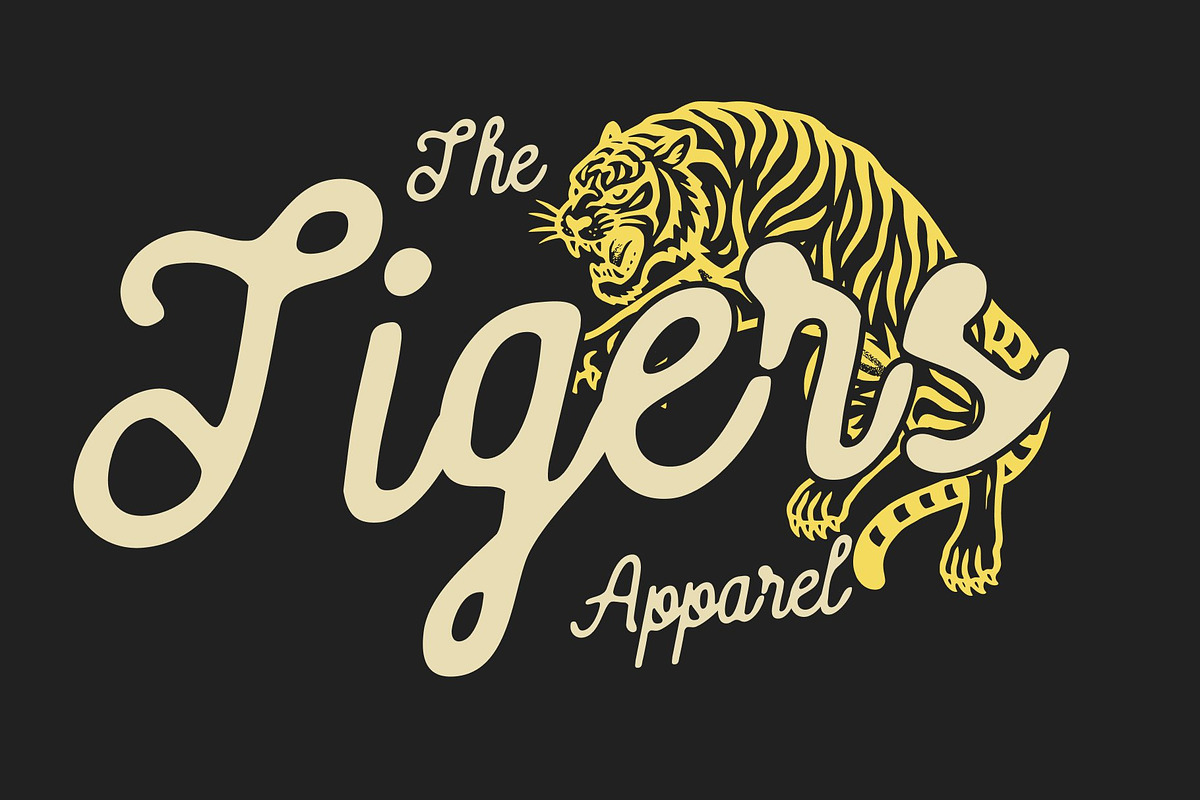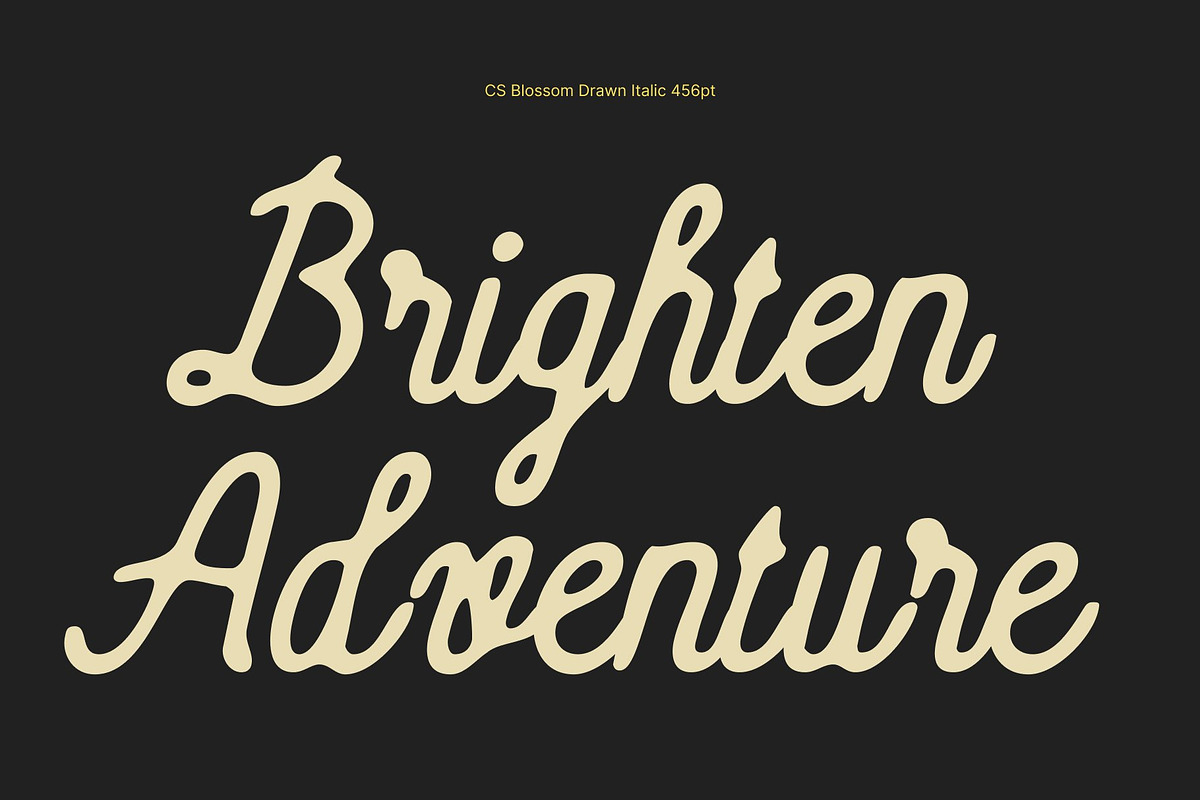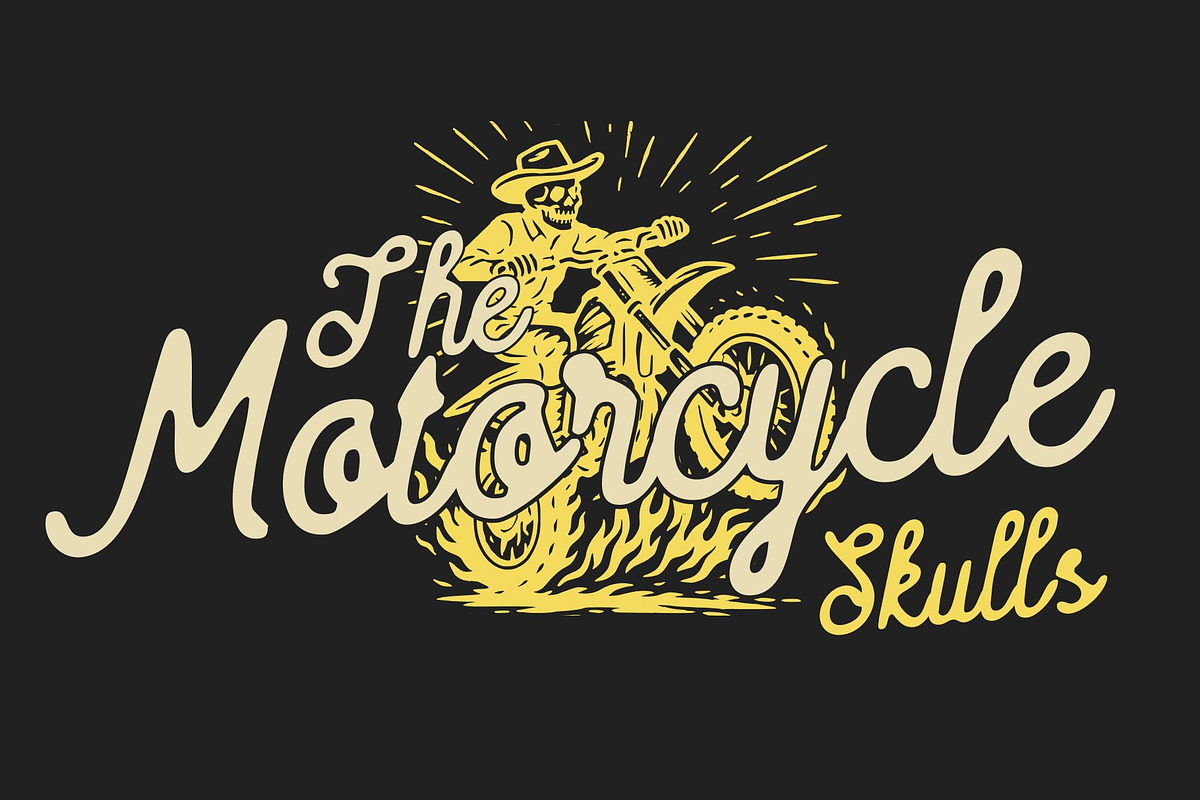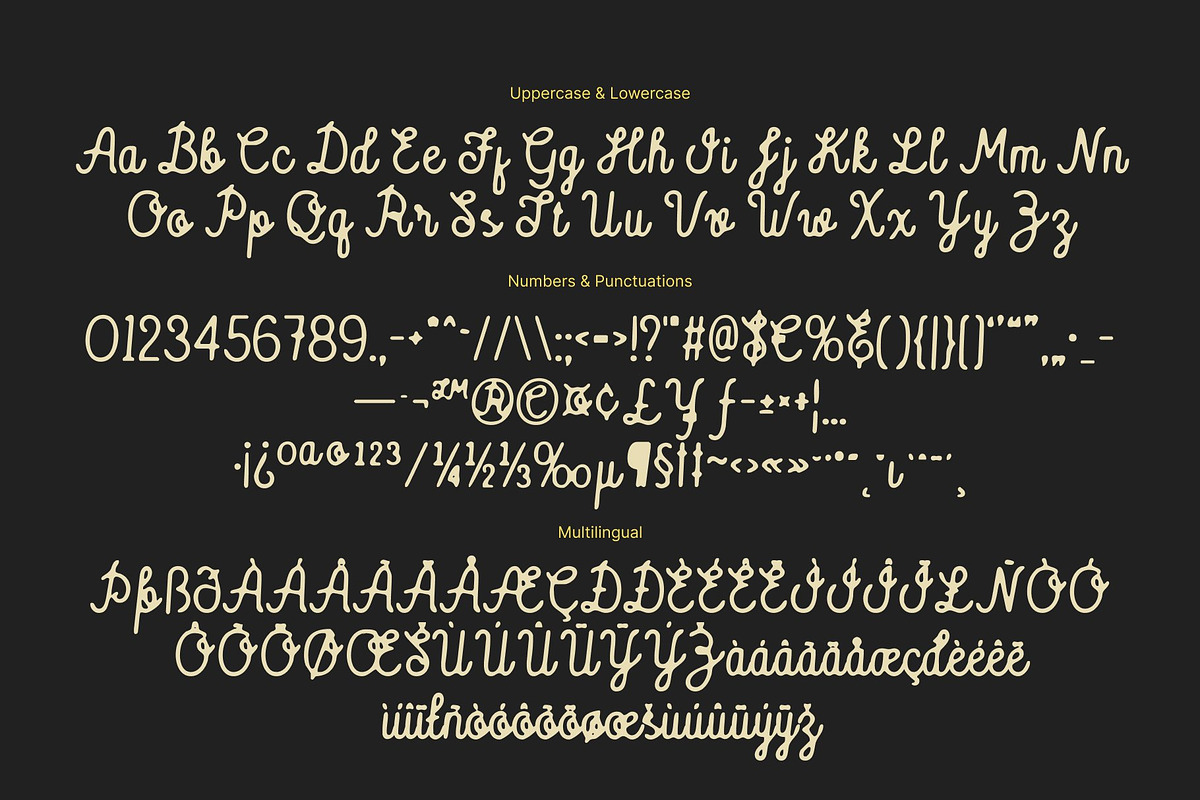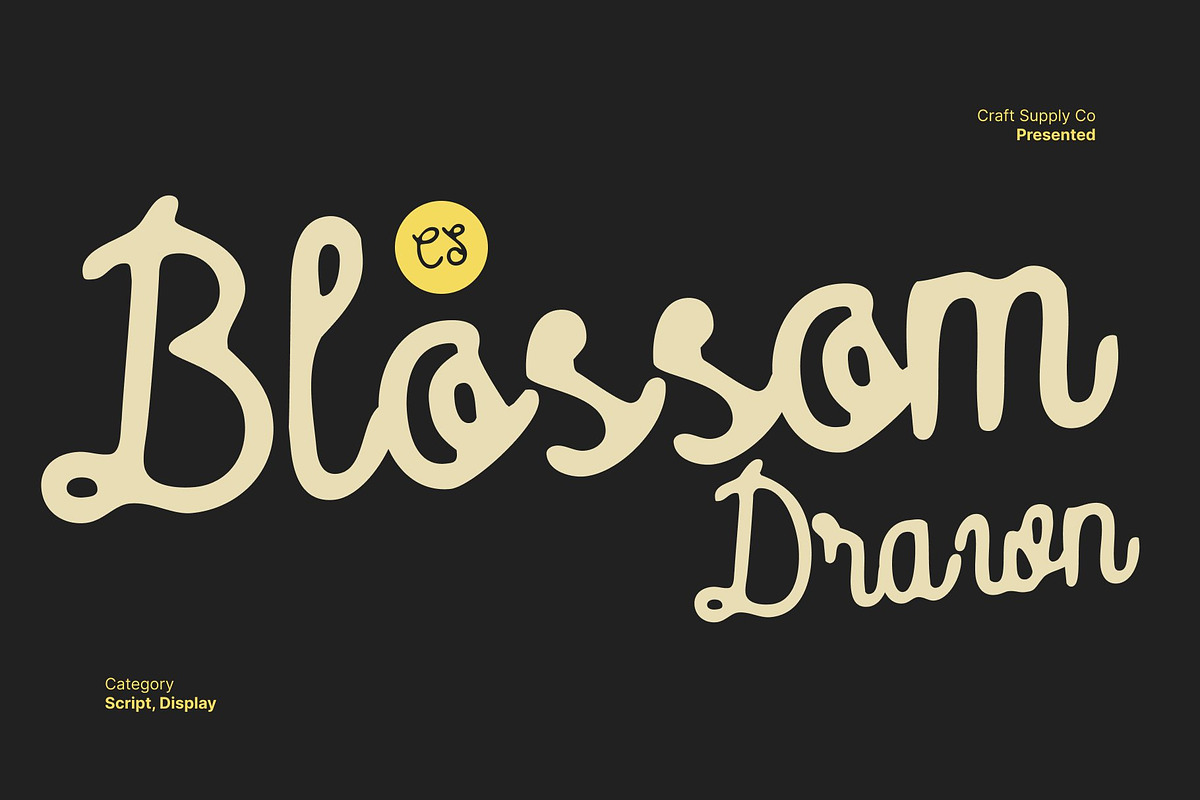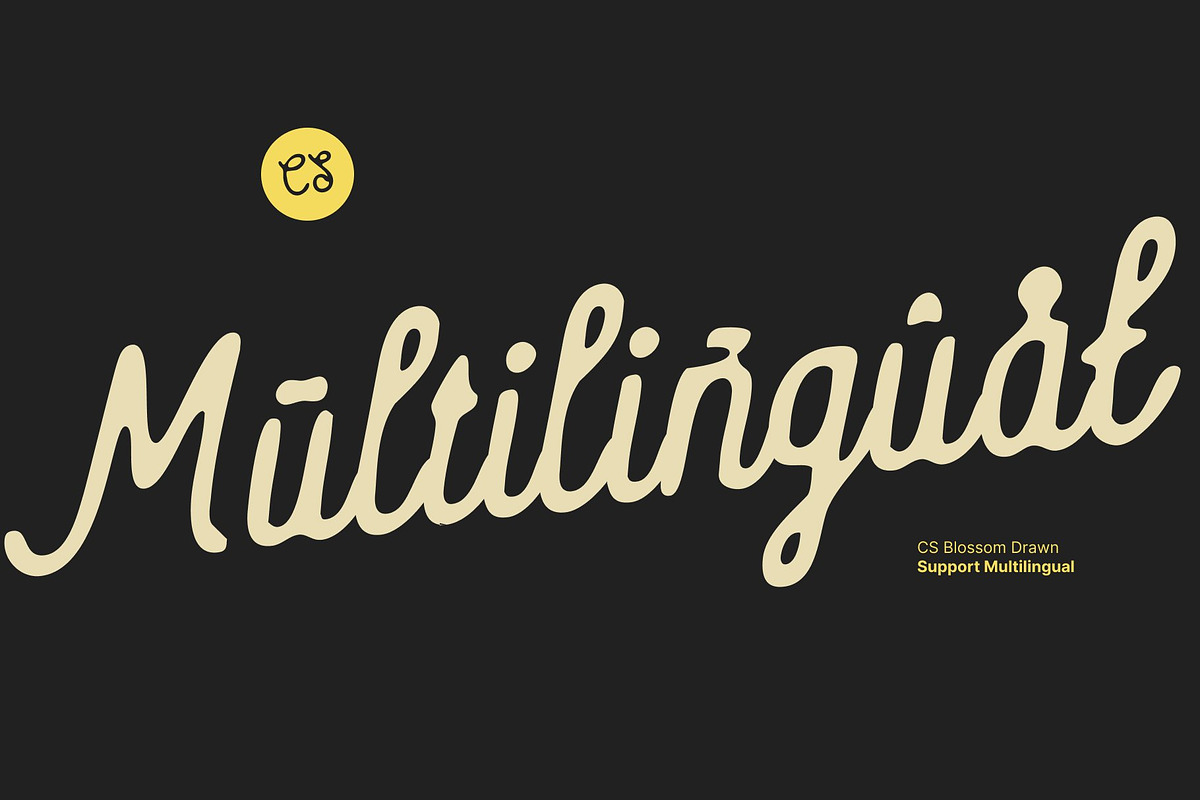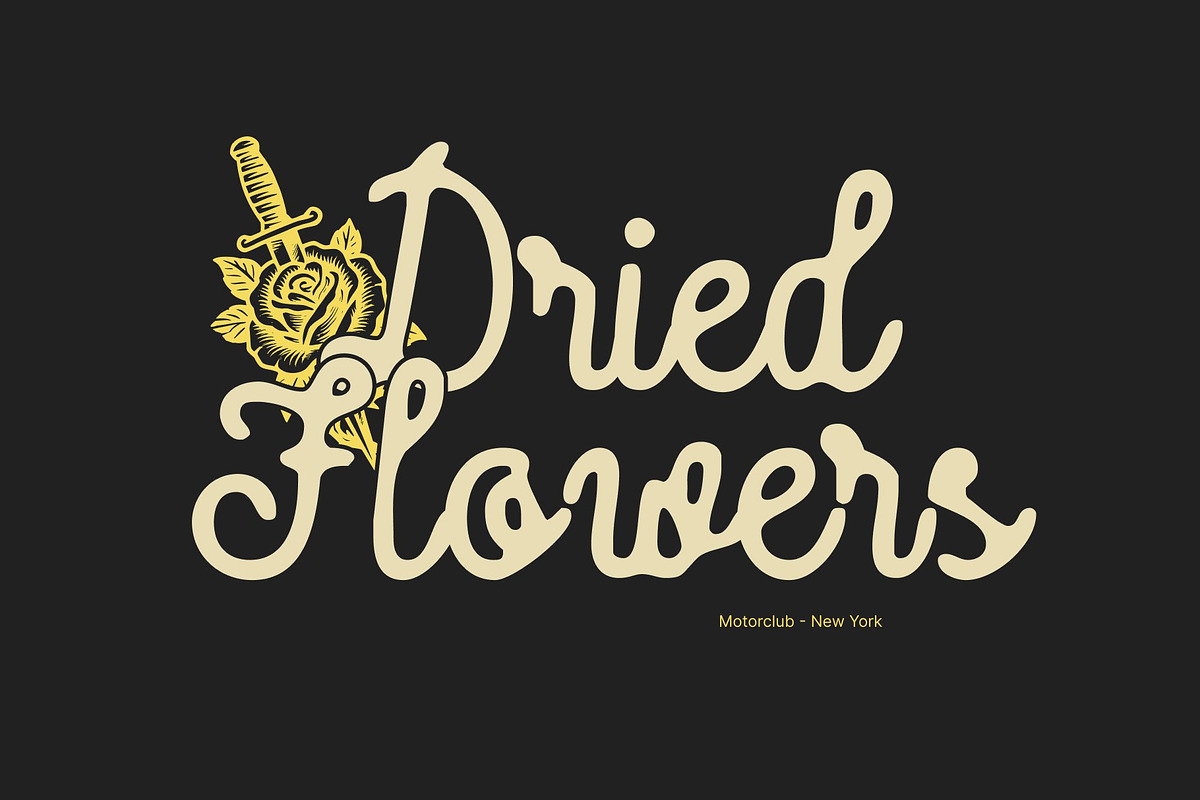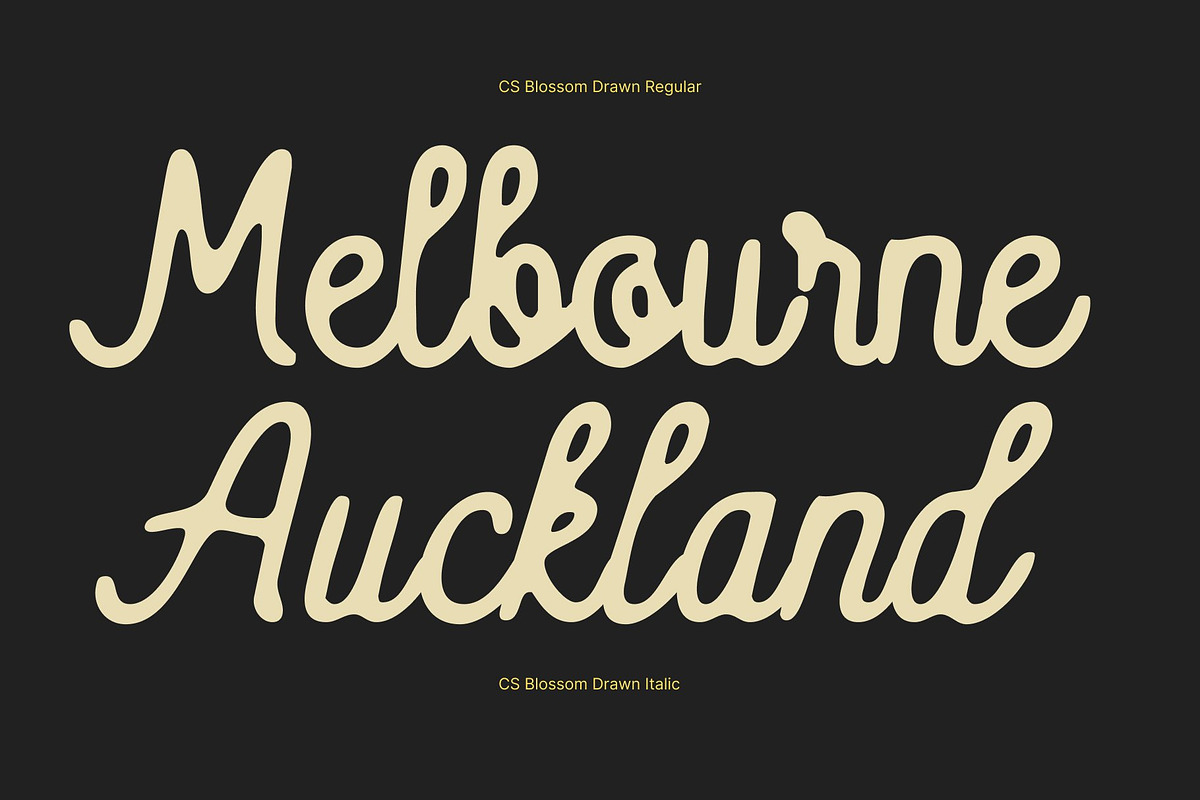
CS Blossom Drawn
CS Blossom Drawn – Vintage Elegance with a Handcrafted Soul
Vintage Script with Classic Refinement This is a vintage script font that radiates timeless elegance. With its graceful letterforms and decorative flourishes, it captures the sophistication of classic handwriting while exuding a nostalgic charm. Each curve flows effortlessly, evoking the romance of a bygone era where beauty met craftsmanship.
Drawn Texture for Authentic Character The hand-drawn texture gives this font a unique, ink-overflowing look that enhances its authenticity. This subtle imperfection adds warmth and individuality, making every letter feel alive and handcrafted. The texture transforms the refined script into something tactile and expressive perfect for designs that value personality as much as polish.
Elegant Details for Lasting Impression This font combines vintage allure with artistic expression. Its ornate strokes and fluid motion make it ideal for projects that aim to convey sophistication with a human touch. Whether printed or digital, it carries an unmistakable air of old-world charm and creative flair.
Perfect for Retro and Nostalgic Design Ideal for retro posters, bar menus, and nostalgic branding, this font brings a sense of heritage and authenticity to every composition. Its combination of classic beauty, drawn texture, and handcrafted elegance makes it the perfect choice for designers seeking a vintage script that feels both timeless and full of life.
- CS Blossom Drawn Regular
- CS Blossom Drawn Italic